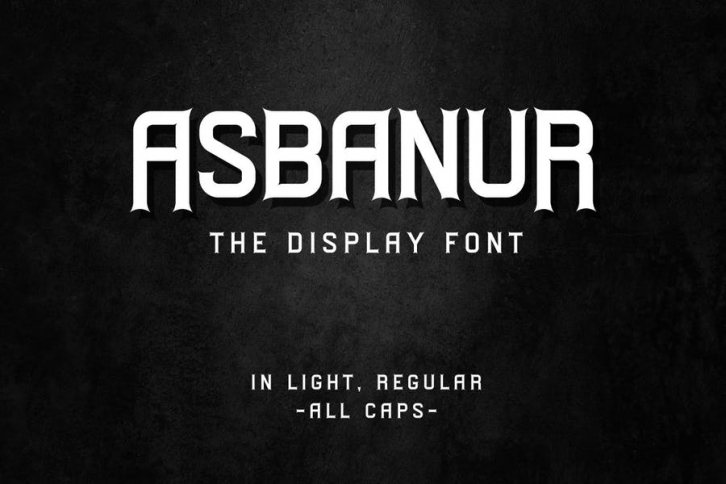
Meet ASBANUR, strong letter with modern looks.
Simple does not mean boring, Asbanur comes in fascinating.
ASBANUR has light, and regular versions. This font is all capital.